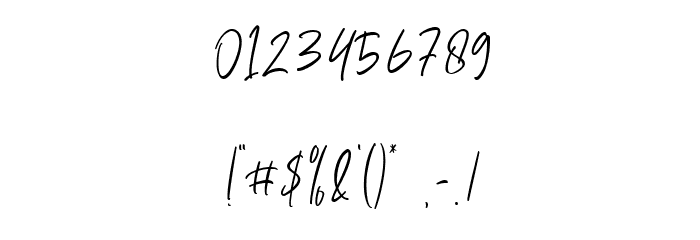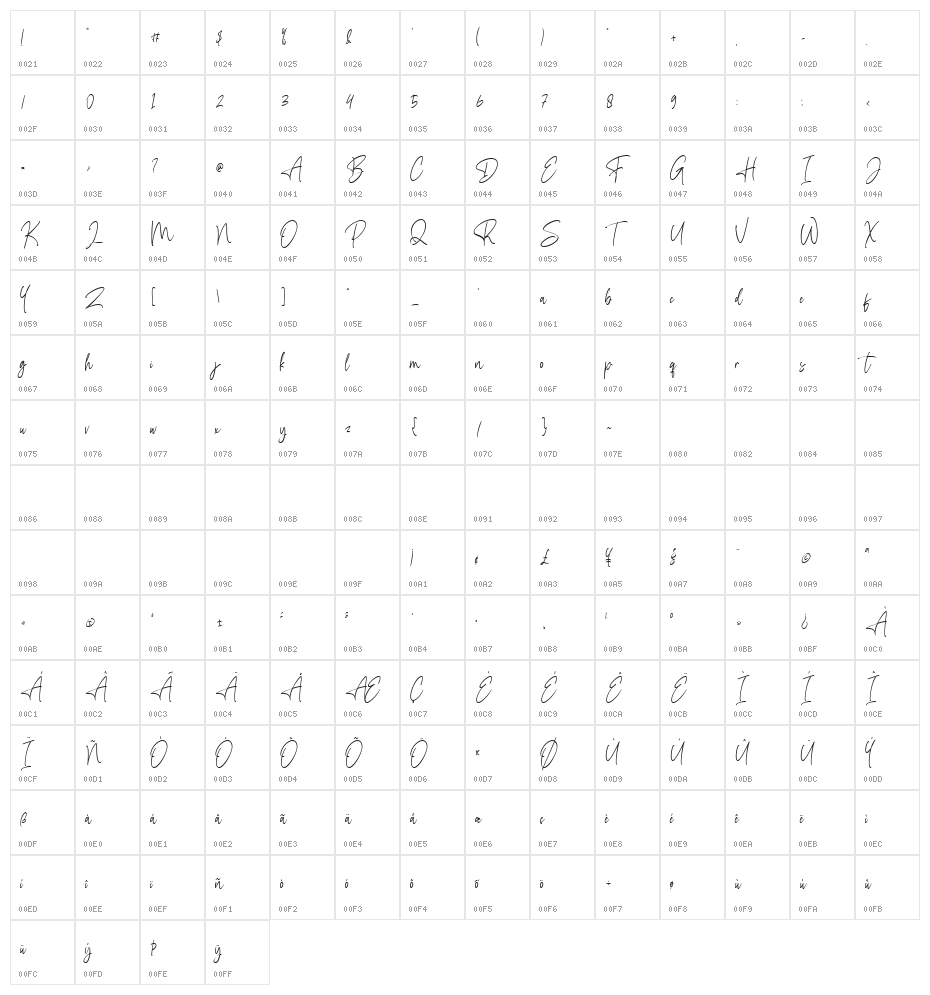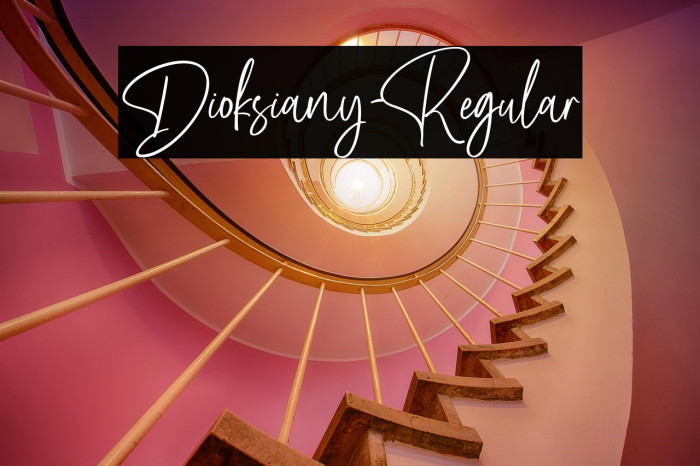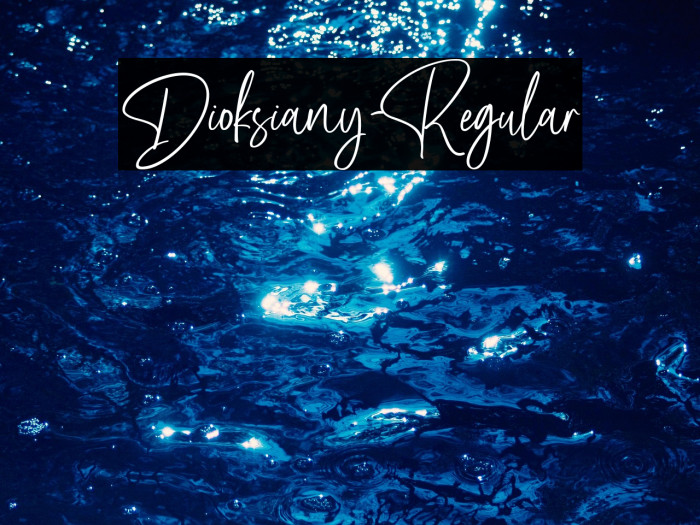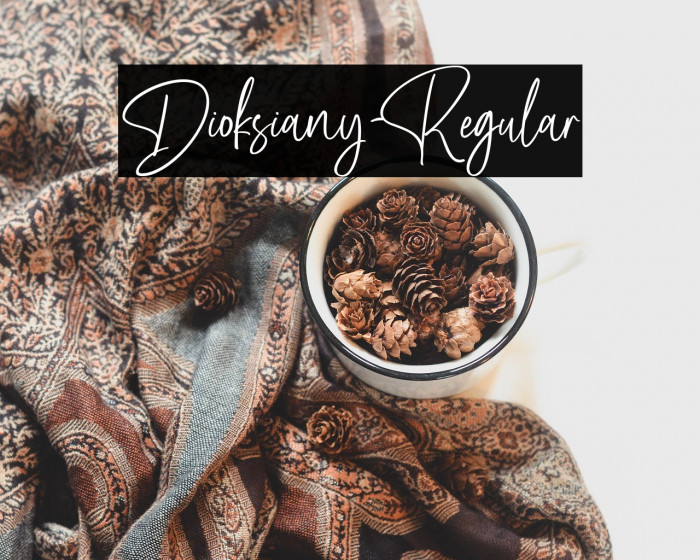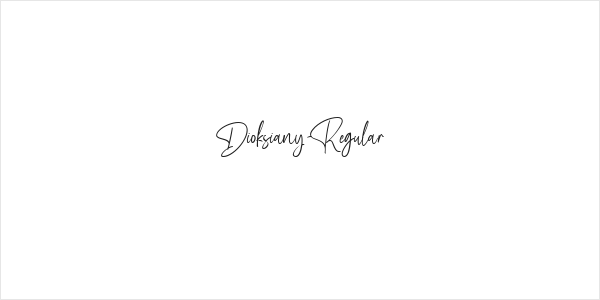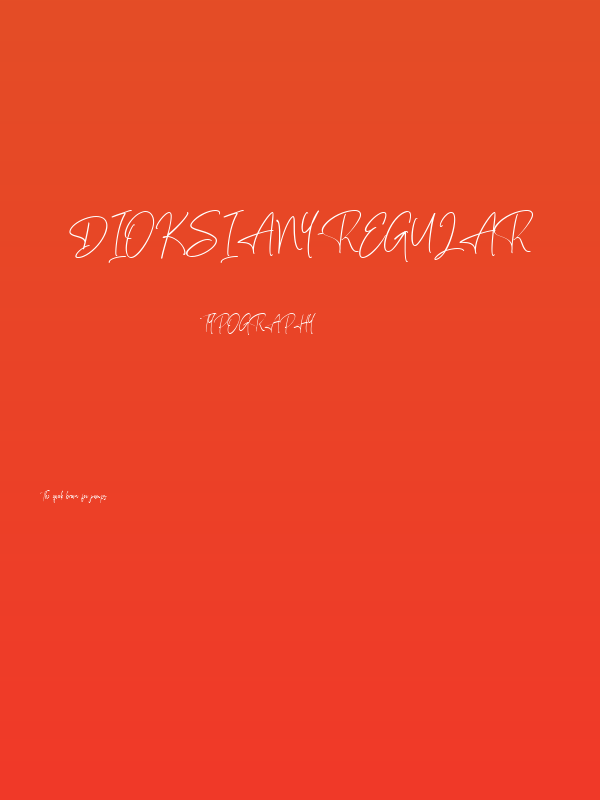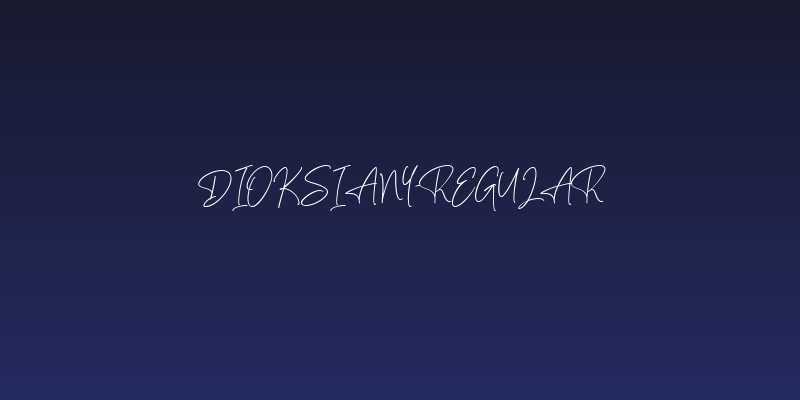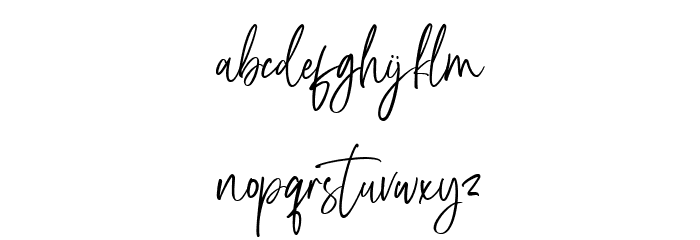
Dioksiany-Regular Font
Dioksiany-Regular Description
This font features a flowing, cursive style that exudes elegance and sophistication. The characters are interconnected, creating a seamless and fluid appearance. The uppercase letters are tall and graceful, with sweeping curves and loops that add a touch of flair. The lowercase letters maintain a consistent style, with smooth transitions and rounded forms. The numerals are distinct yet harmonious with the overall design, while the special characters retain the same fluidity and charm. This font is perfect for projects that require a personal, handwritten touch, such as invitations, greeting cards, or branding materials.